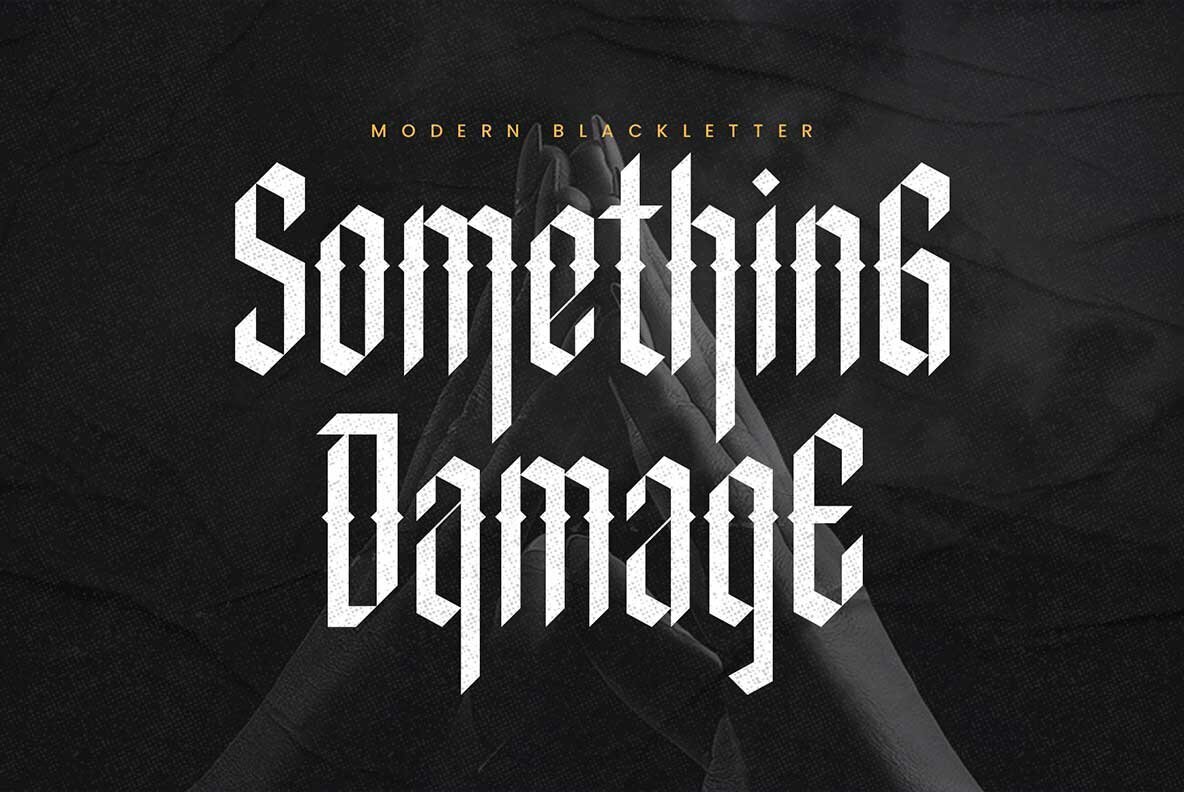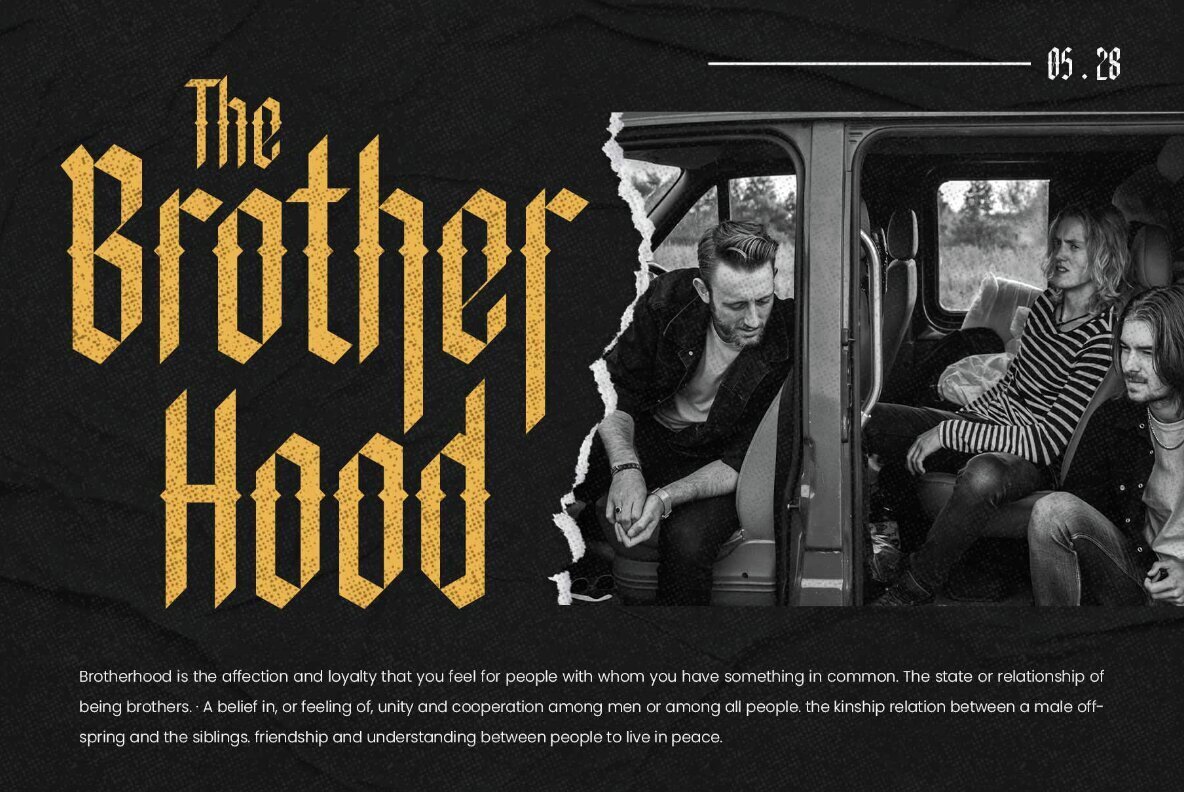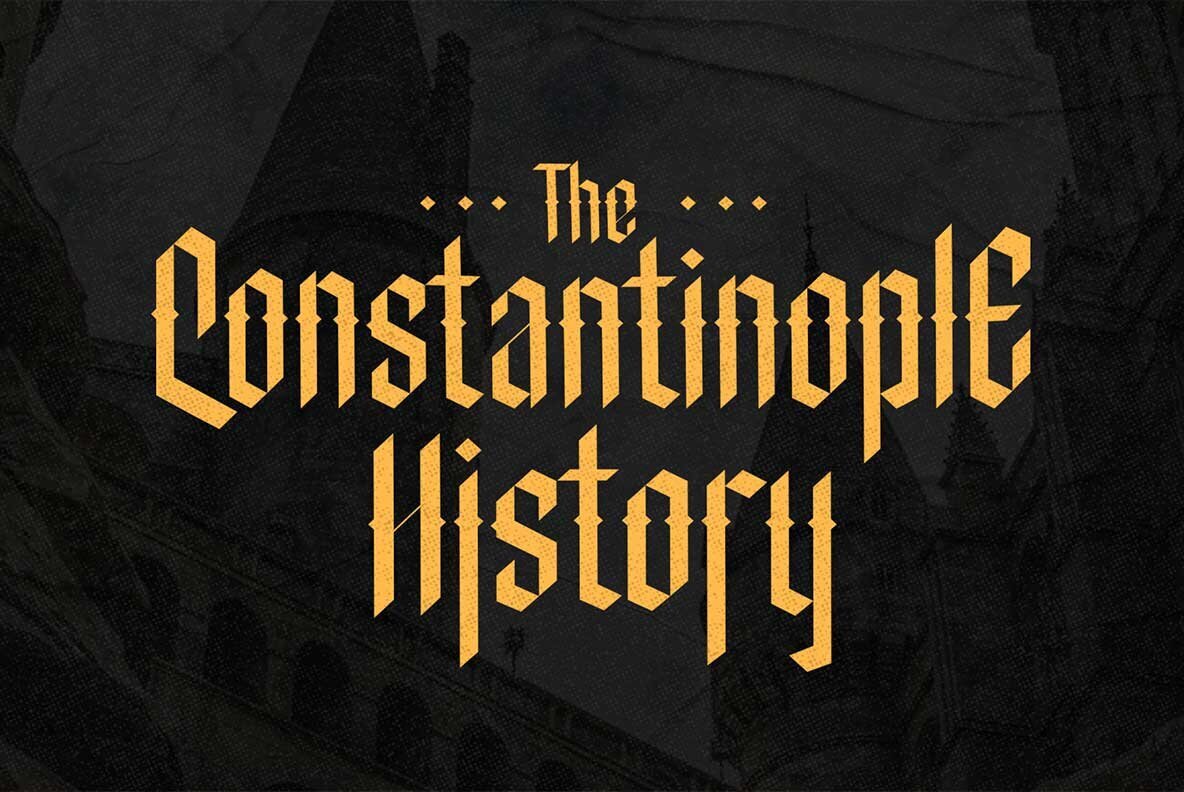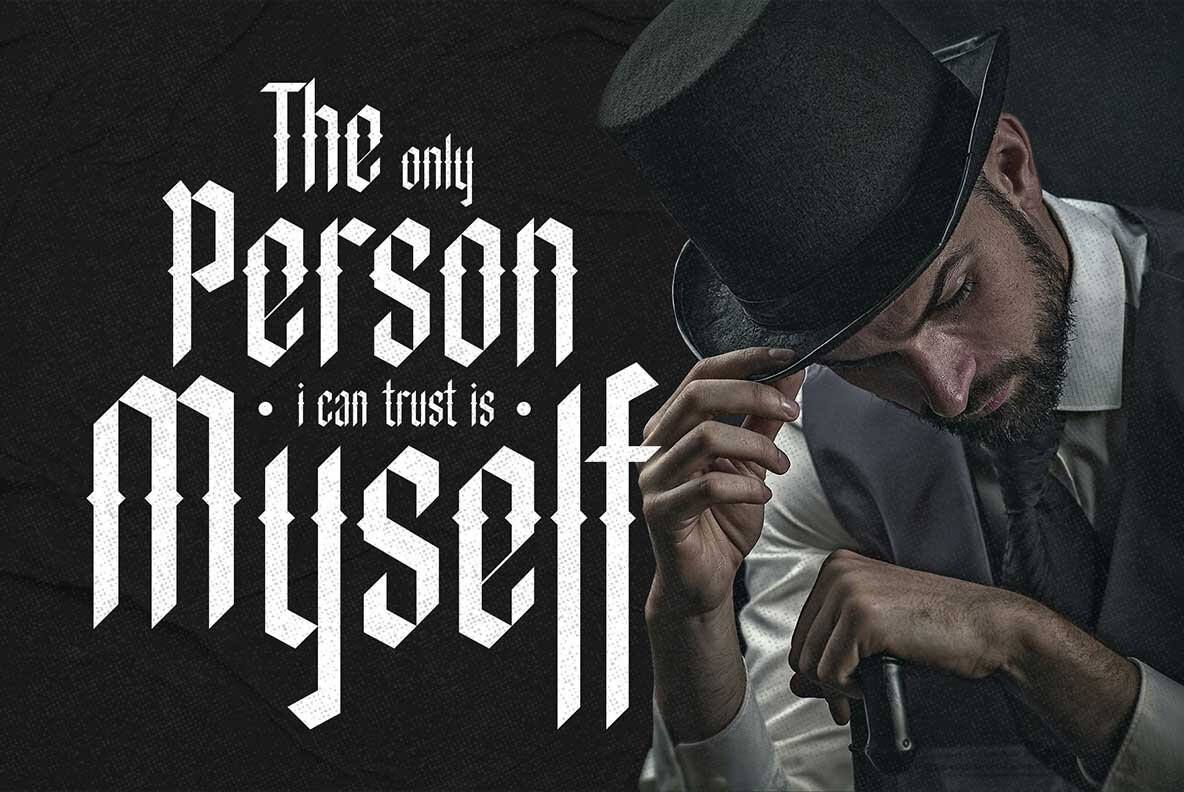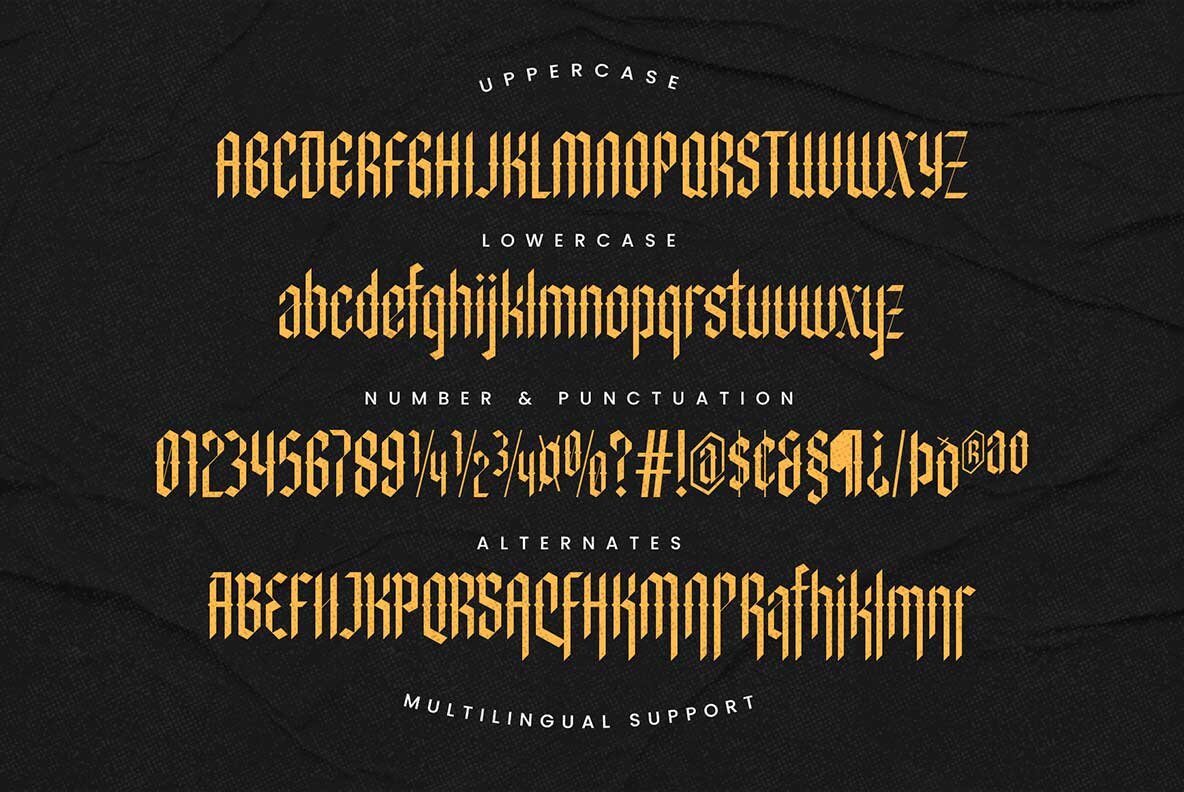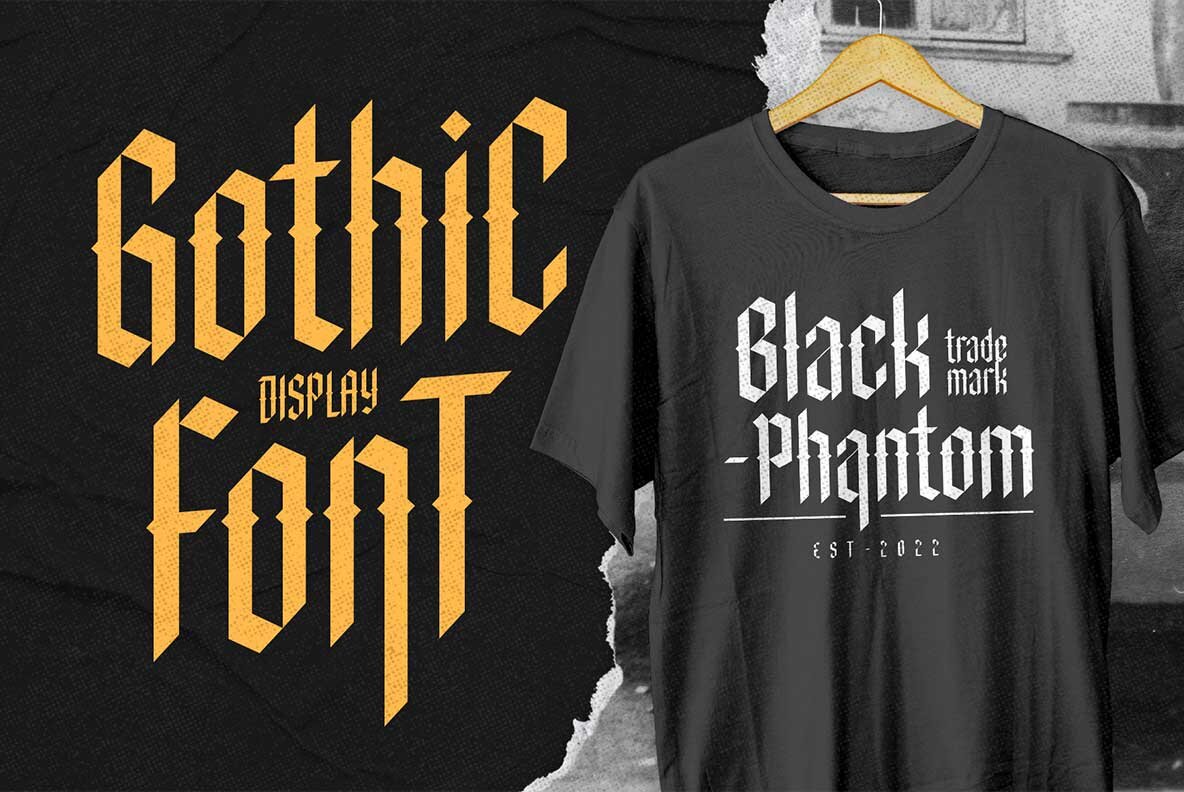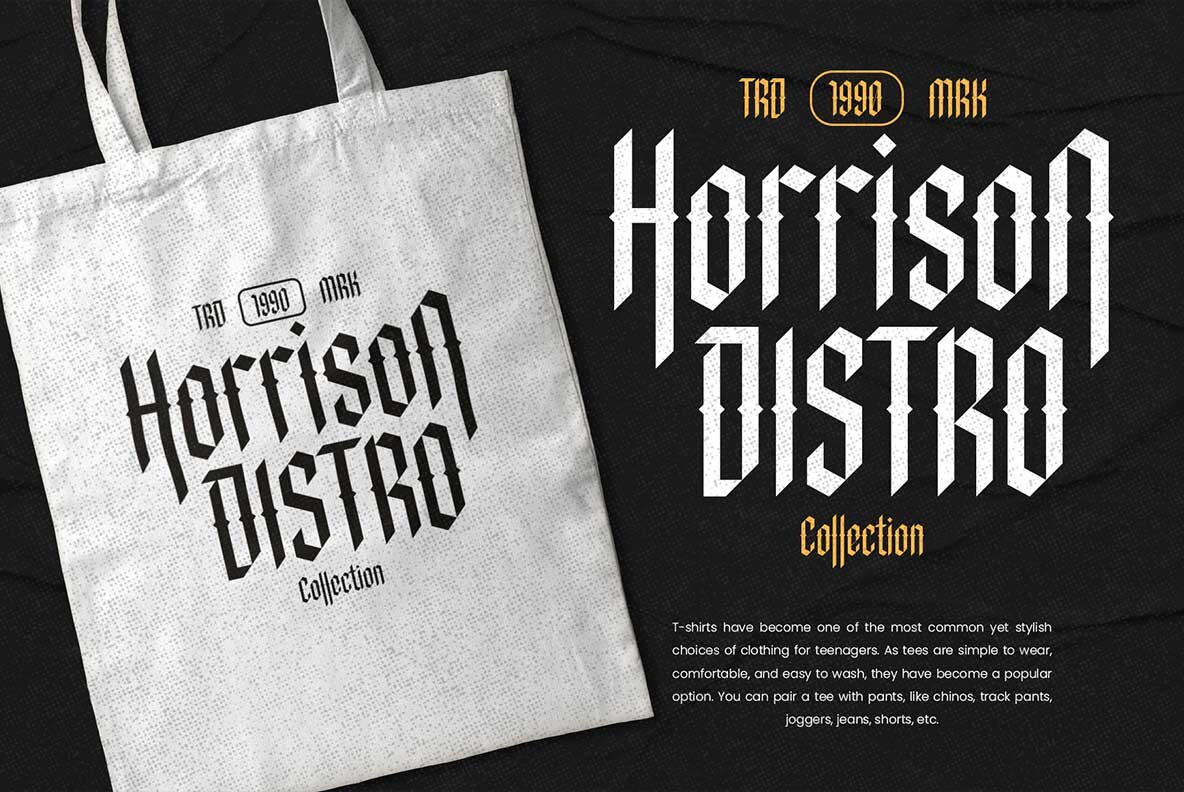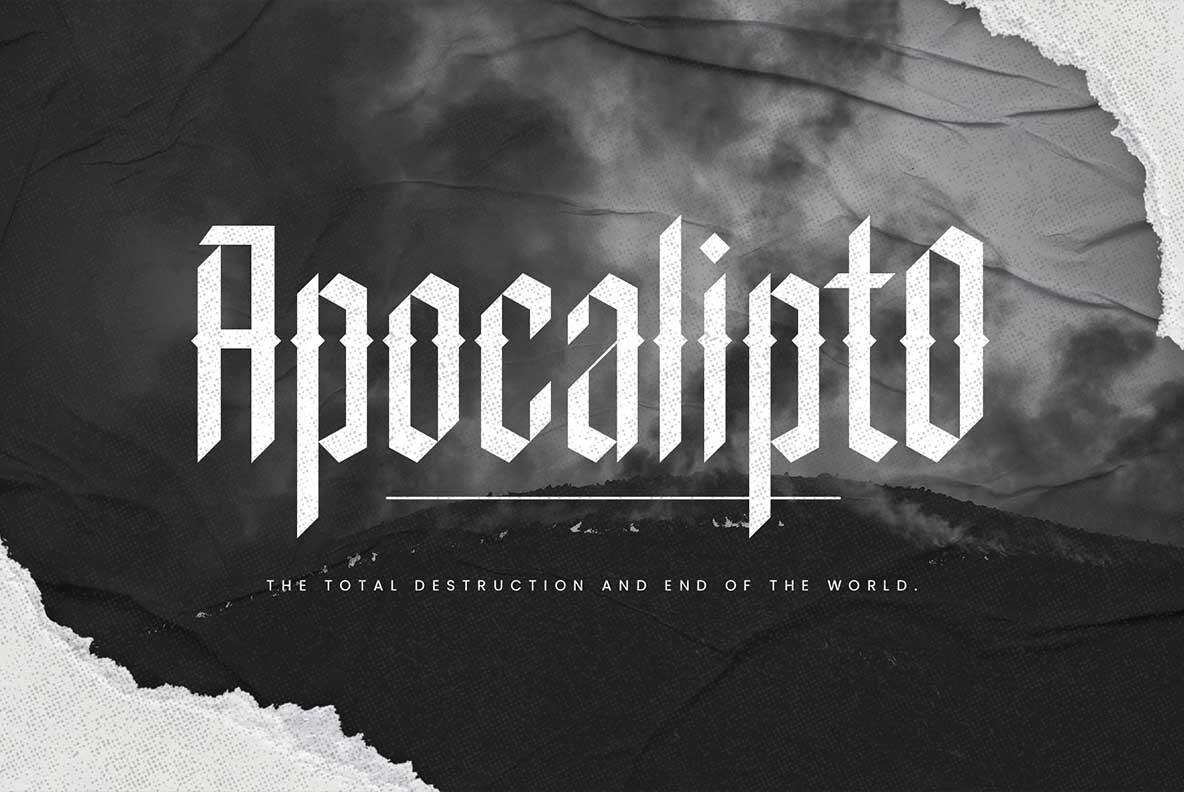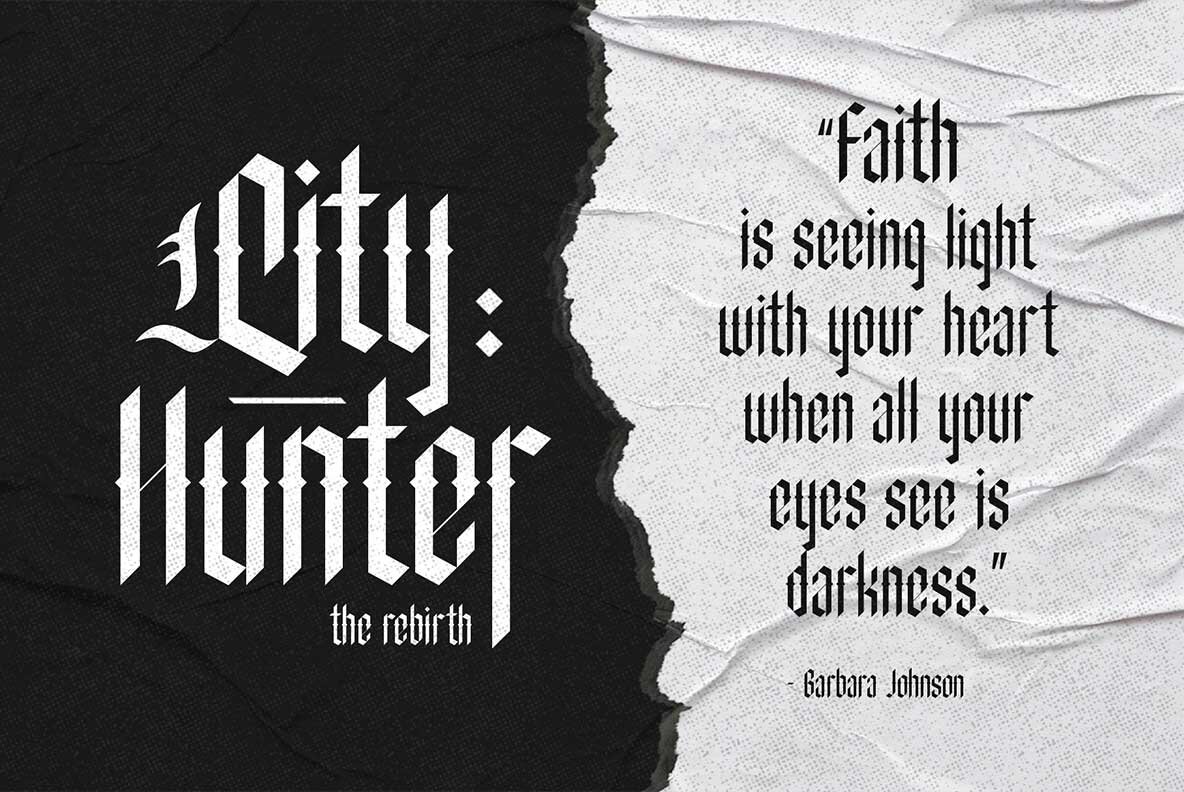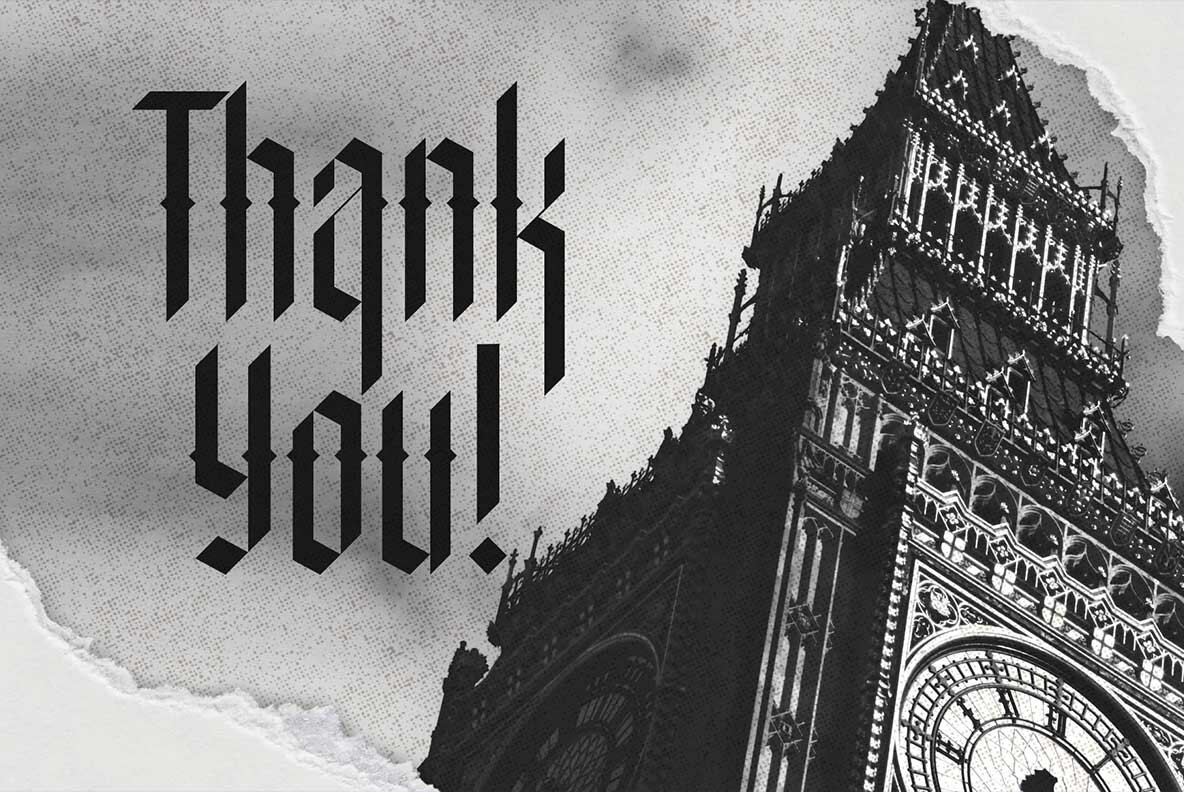
Something Damage Font
Something Damage Regular
Dive into a world of gothic allure with Something Damage, a modern blackletter font that masterfully balances elegance with intensity. Its condensed letterforms and sharp edges create a striking visual effect, perfect for commanding attention. Crafted with geometric precision and inspired by traditional blackletter calligraphy, this font exudes an air of mystique and authority.Embrace Mystery with Something Damage